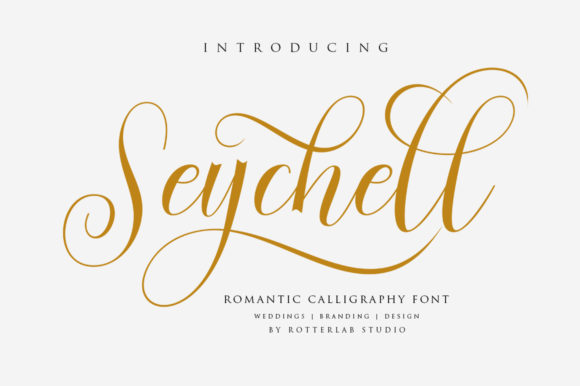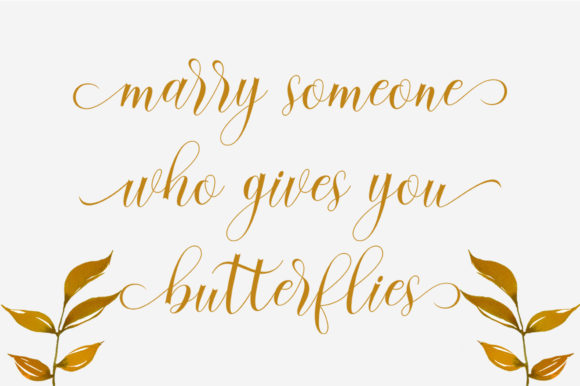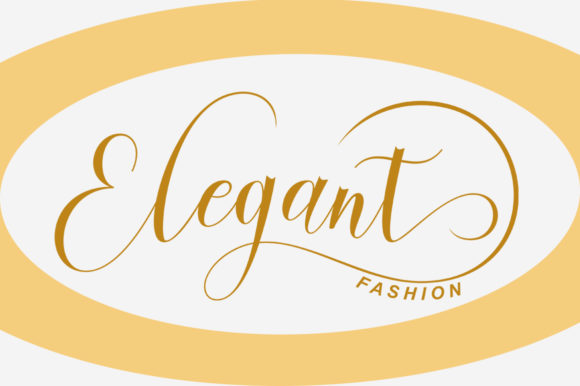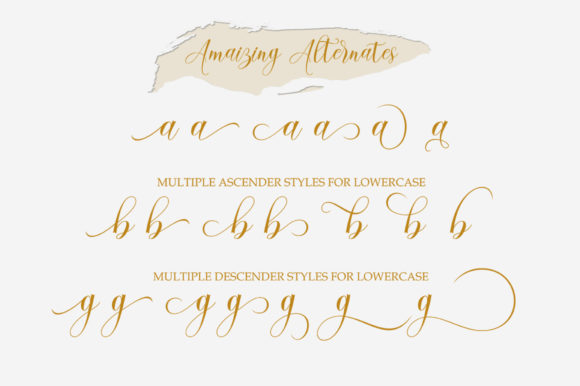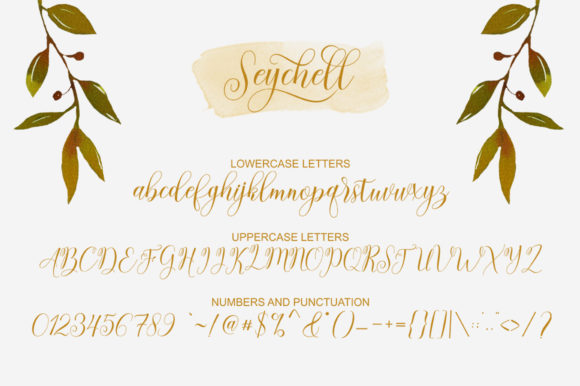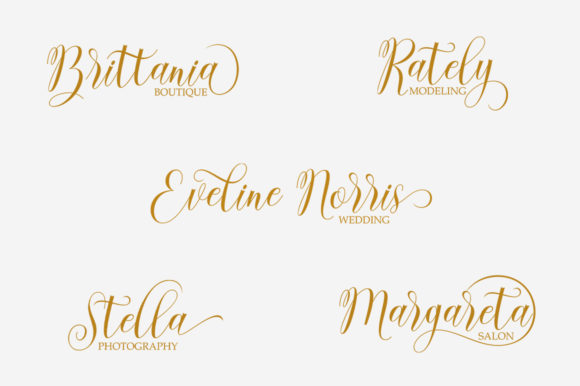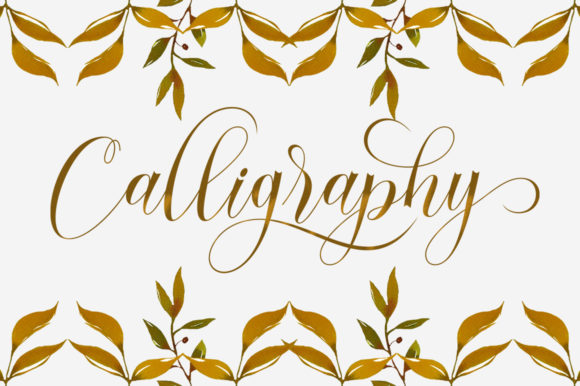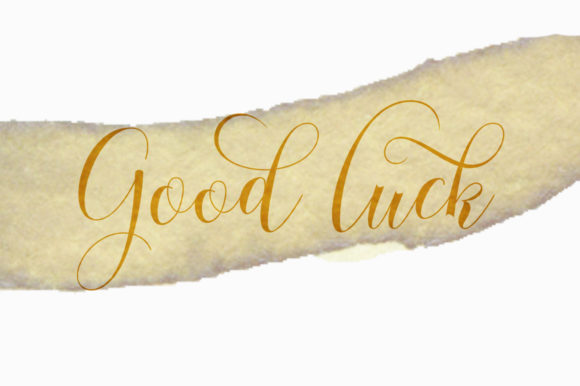
Seychell Font
About Seychell Font
Seychell is an amazing handwritten font with a bold twist. Get inspired by its unique feel, and turn any design project into a stand out!